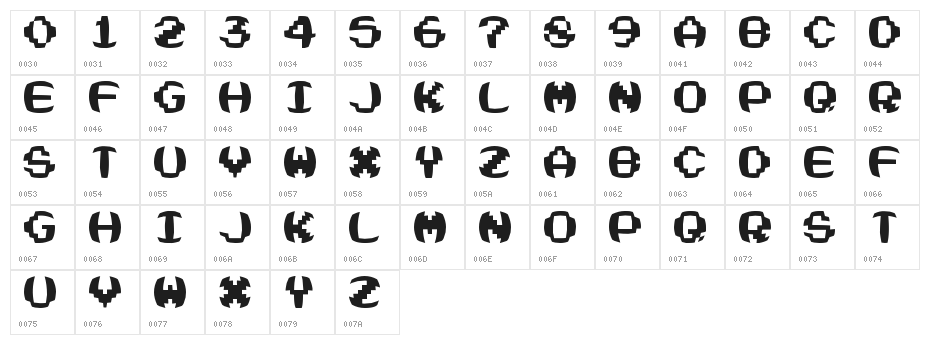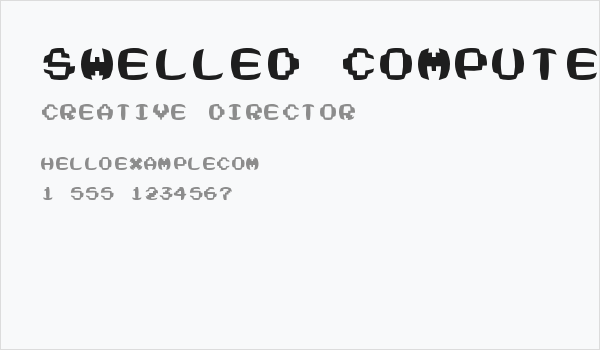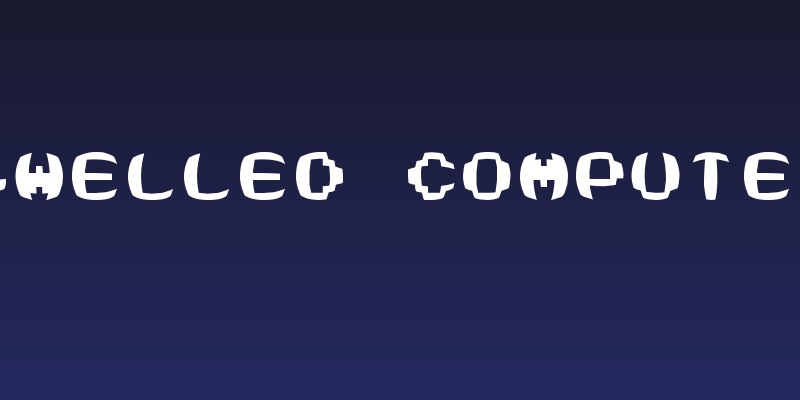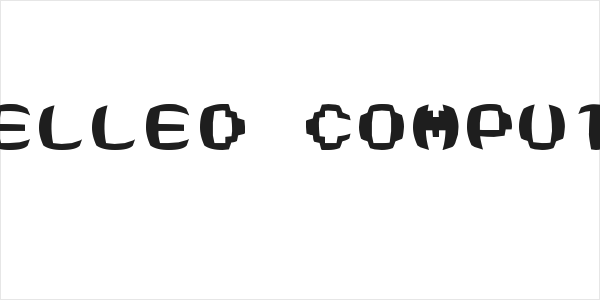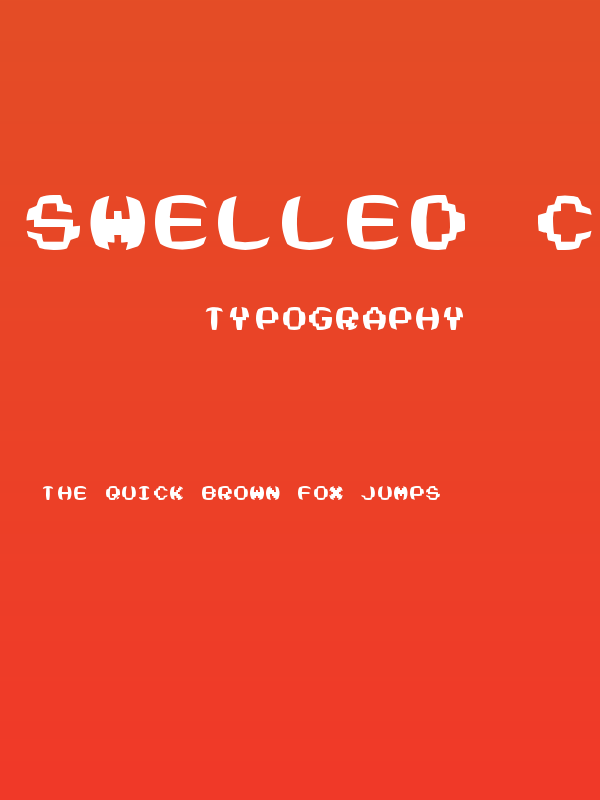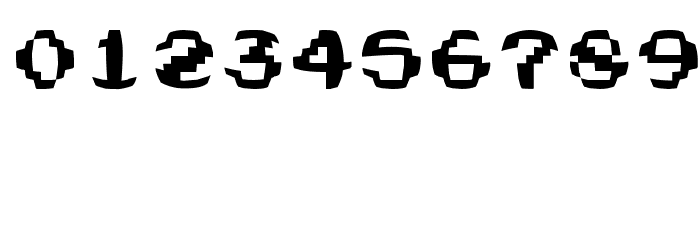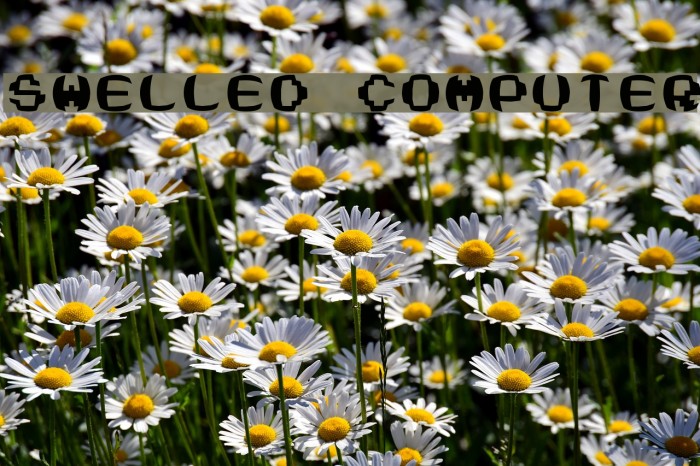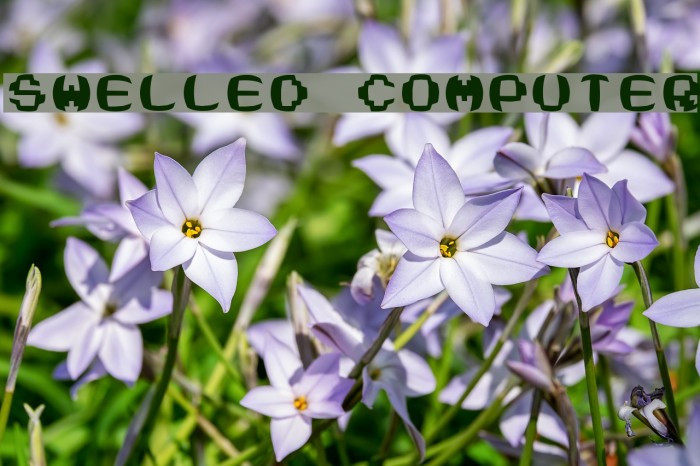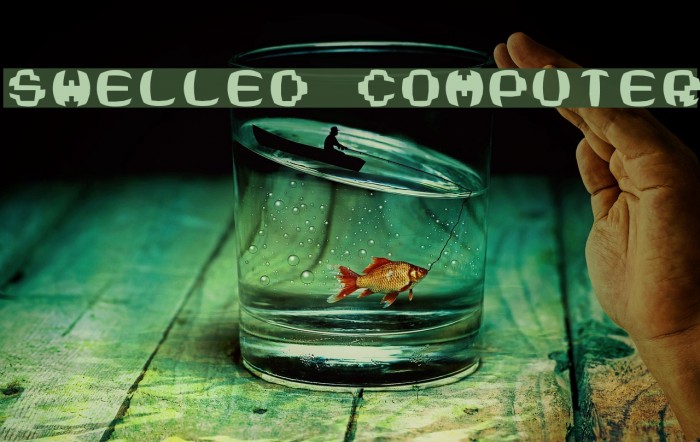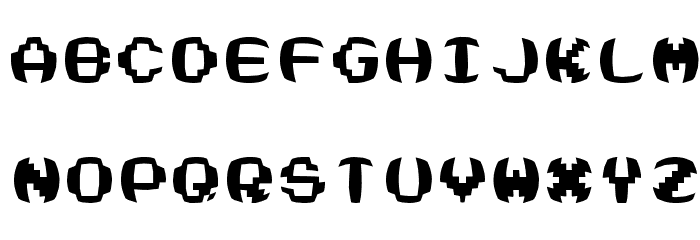
Swelled Computer Font
Swelled Computer Description
This font features a bold and striking design with a pixelated, digital aesthetic. The characters are constructed with sharp, angular edges and a blocky appearance, reminiscent of early computer graphics or video game typography. The uppercase and lowercase letters maintain a consistent style, with each character exhibiting a unique, jagged silhouette that adds to the overall digital theme. The numbers and special characters follow the same design principles, ensuring a cohesive look across all glyphs. This font is ideal for projects that require a retro or tech-inspired feel, making it perfect for gaming, technology branding, or digital art projects.